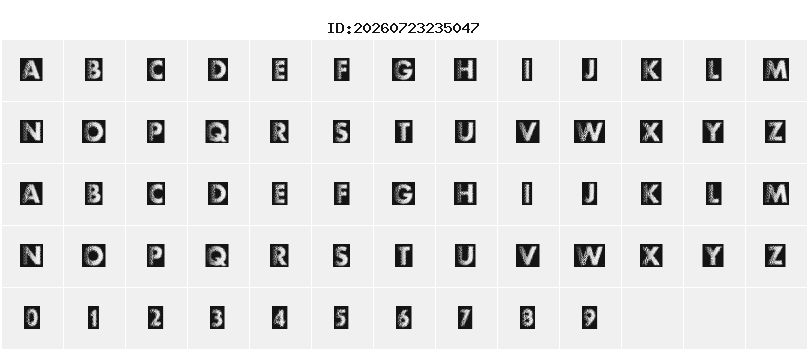
Experimento Preview
• Font Name: Experimento
• Full Font Name: Experimento
About Experimento.ttf
Experimento.ttf is a modern, elegant sans-serif font designed for ultimate readability and visual harmony. Perfect for branding, headlines, web design, and print materials.